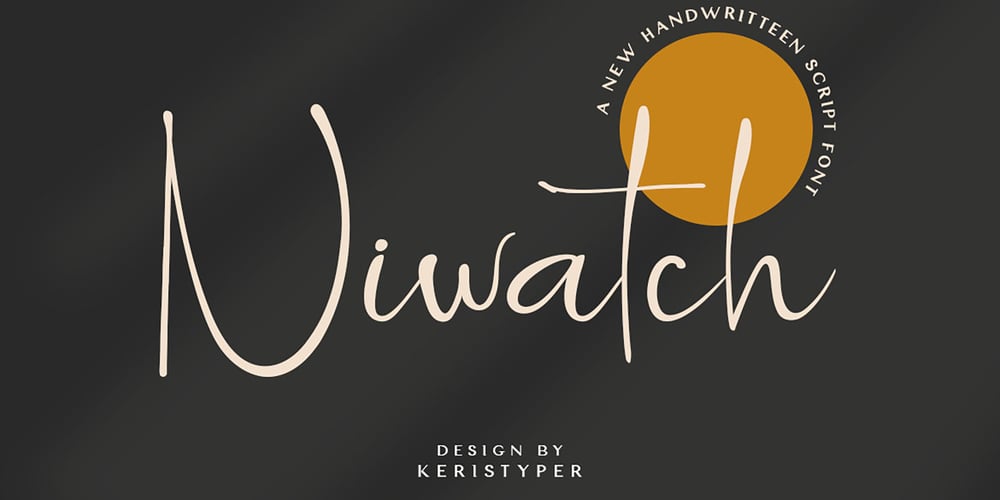
Niwatch Font Family was designed by Tezar Tantular and published by Keristyper Studio. Niwatch contains 1 styles and family package options. Niwatch is an elegant modern script font. With high contrast stroke and fun character. This font is good for logo design, Social media, Movie Titles, Books Titles, short text even long text letters, and good for your secondary text font with sans or serif. Make a stunning work with Roselites font.Featured: Standard Uppercase & Lowercase Numeral & Punctuation Multilingual : ä ö ü Ä Ö Ü ß ¿ ¡ Alternate & Ligature PUA encoded We recommend programs that support the OpenType feature and the Glyphs panel such as Adobe applications or Corel Draw. so you can use all the variations of the glyphs.Hope you enjoy our fonts!